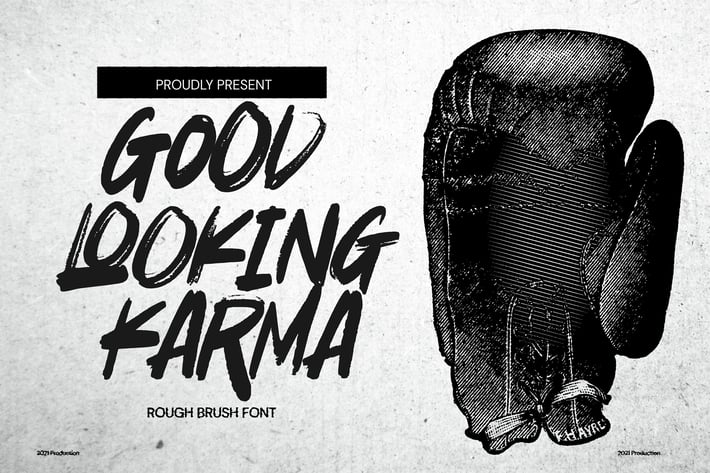
Good Looking Karma - natural Rough Brush Font
Good Looking Karma - Handwritten Brush font made with Procreate app with Rough style and dramatic movement. This font is great for your next creative project such as logos, printed quotes, invitations, cards, product packaging, headers, Logotype, Letterhead, Poster, Label, and etc.